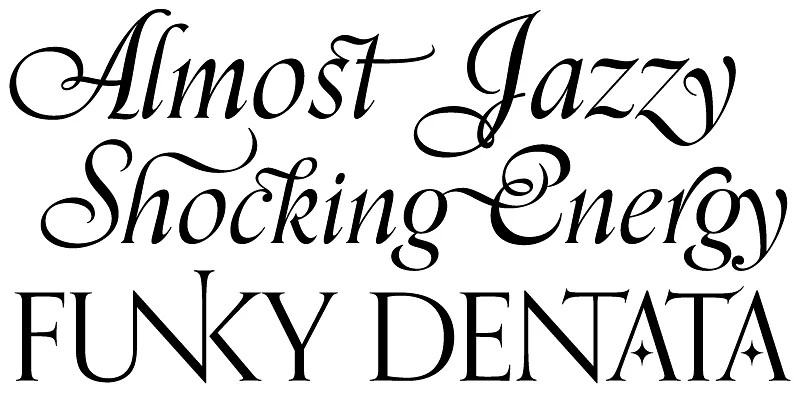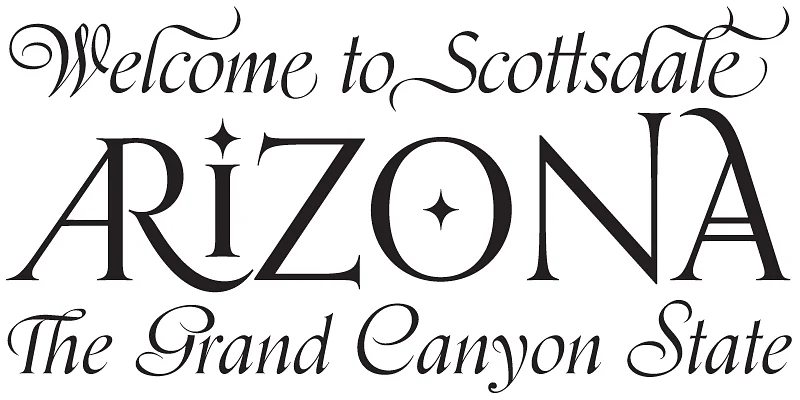
Orpheus Font
Few typefaces manage to balance refined proportions and careful stroke modulation with genuine day-to-day practicality. Orpheus is one of them. The typeface brings a versatile sensibility to a broad range of creative disciplines, with versatility across print and screen contexts that holds up whether the work is print-first or screen-first.
In practice, Orpheus proves particularly effective for annual reports, signage systems, poster creation, social media graphics, brand identity systems. Designers reaching for it find that the type decisions feel resolved rather than laboured — a useful quality when client timelines are tight.
The range of applications extends to editorial layouts, logo design, packaging design, environmental graphics. That breadth is deliberate: the proportions and spacing were stress-tested across a wide range of mock briefs before the typeface was finalised.
Spacing and kerning pairs have been individually reviewed for the most common letter combinations in English and major European languages. The result is even type colour across continuous text, with no awkward gaps or collisions between adjacent characters.
Independent studios handling packaging and editorial work find Orpheus a reliable choice for projects that demand both personality and restraint. The design avoids the self-conscious quirkiness that dates quickly, settling instead for considered distinctiveness that holds up over time.